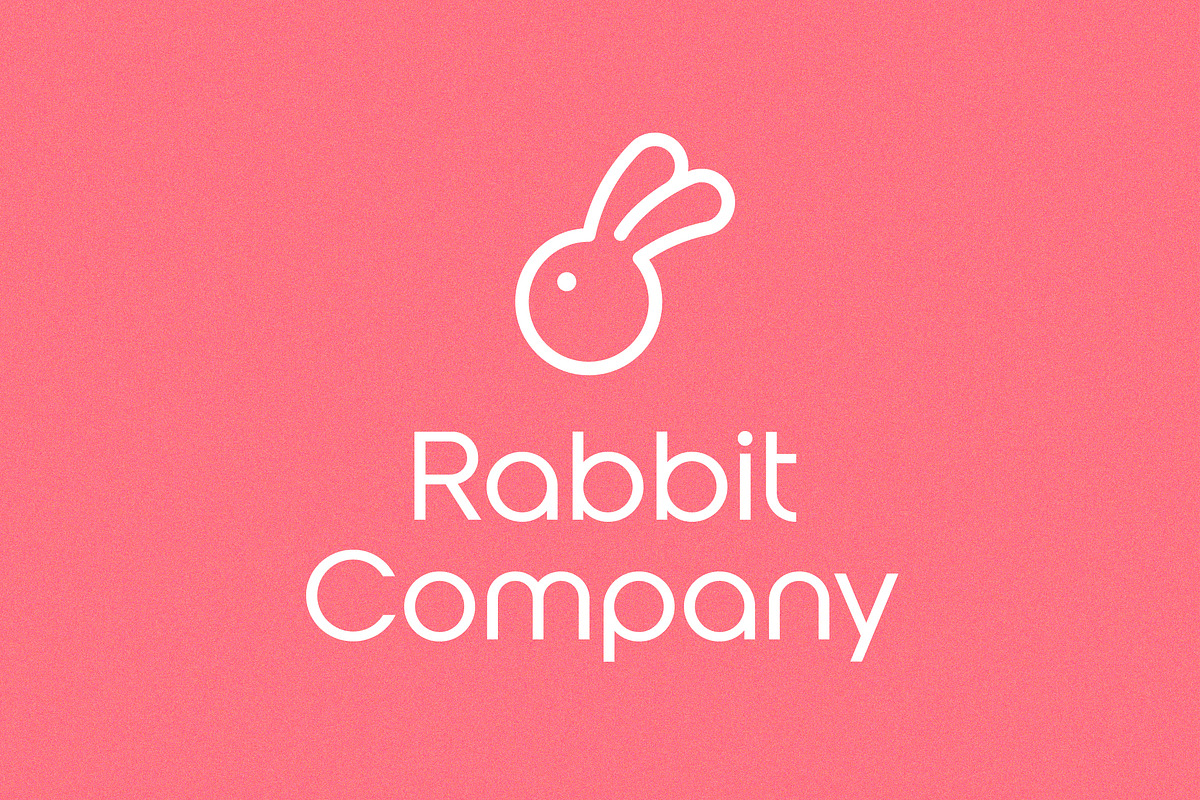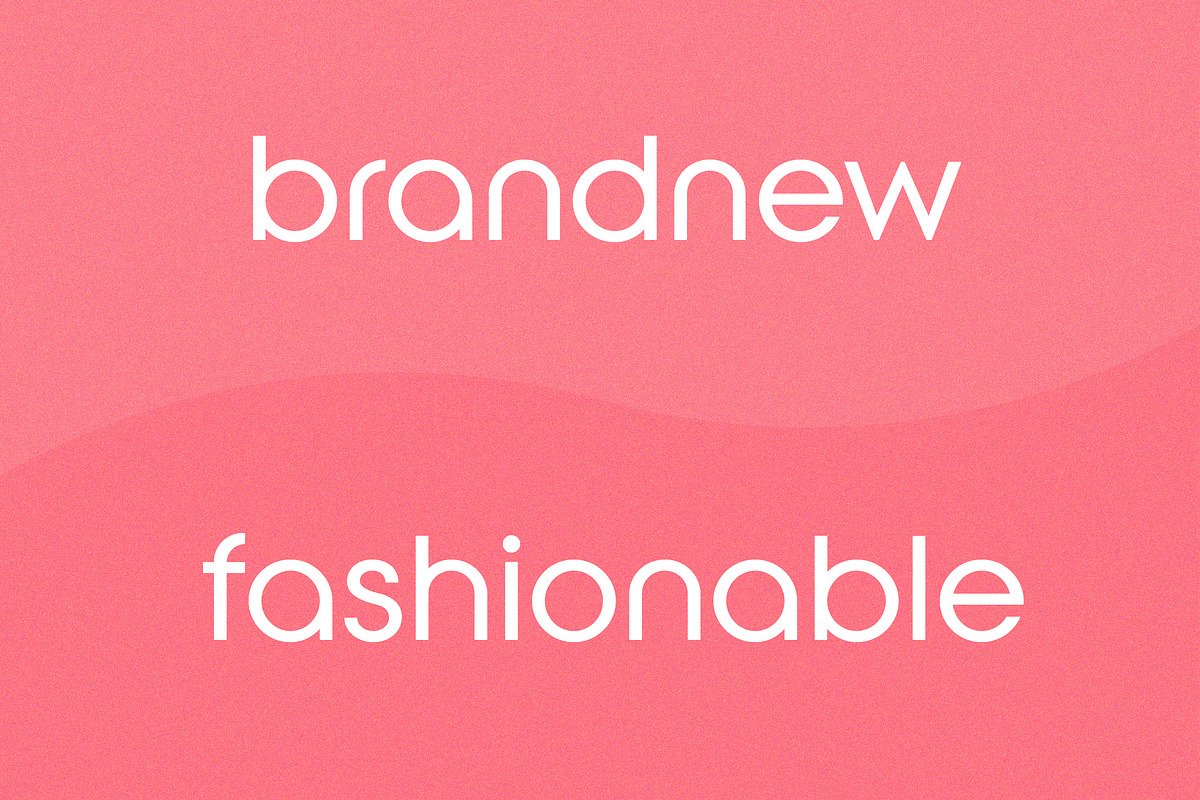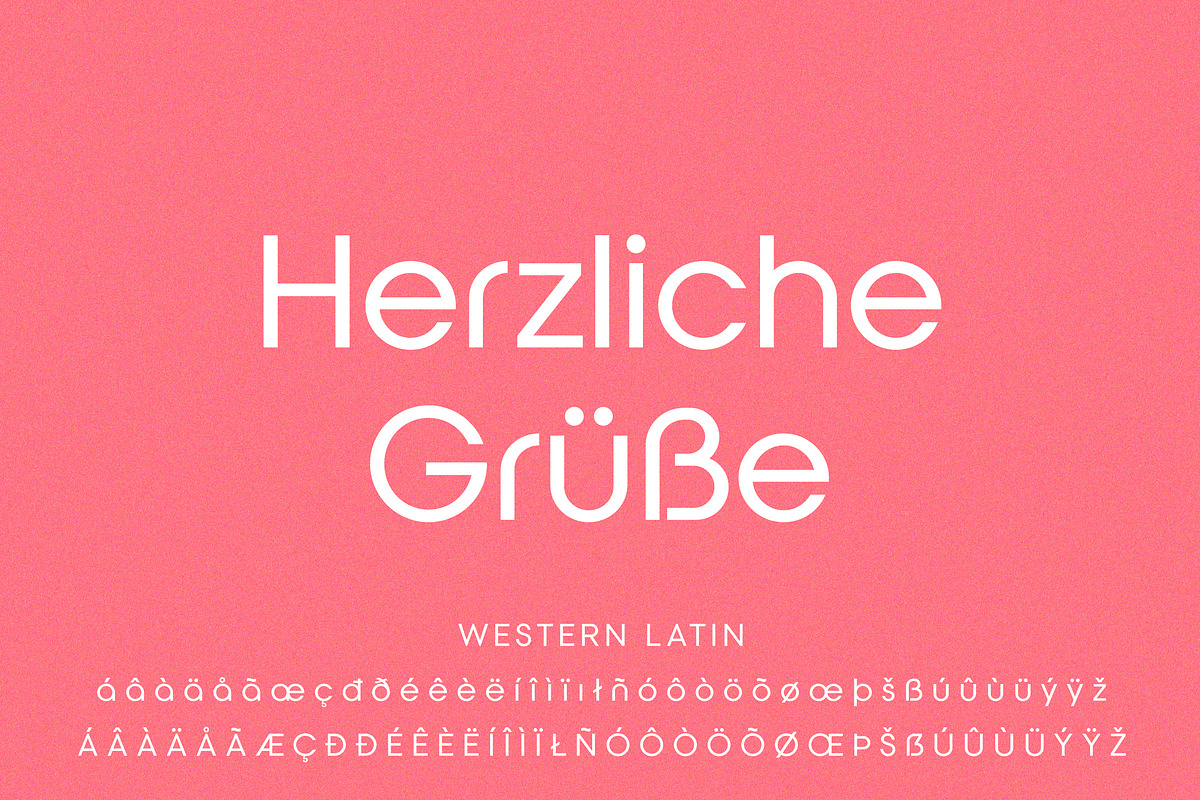
Prelia is a special font for your logo & branding. Every character is designed for a good logo, so not suitable for a long text. You can easily make & use your quality logo with a Desktop License.
Prelia Logo Font Preview